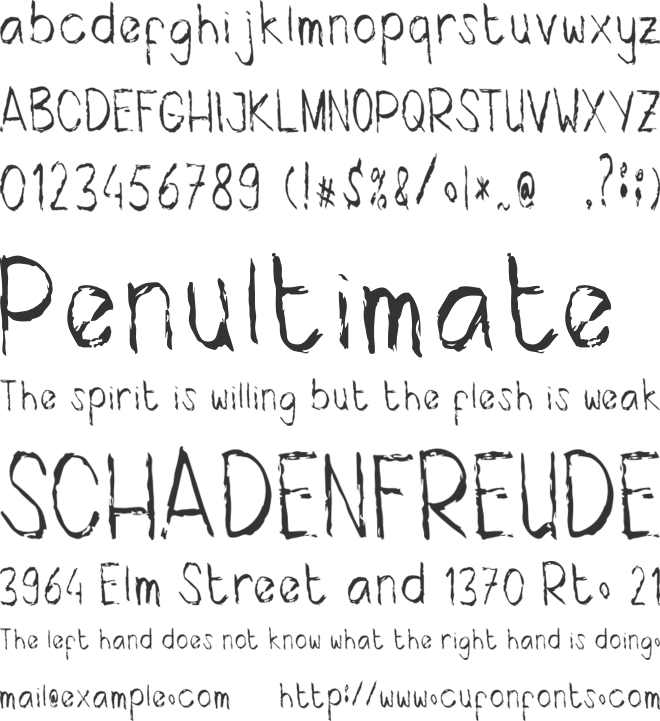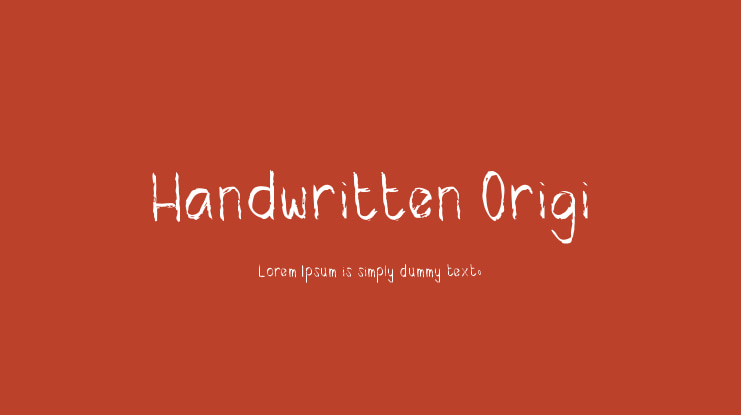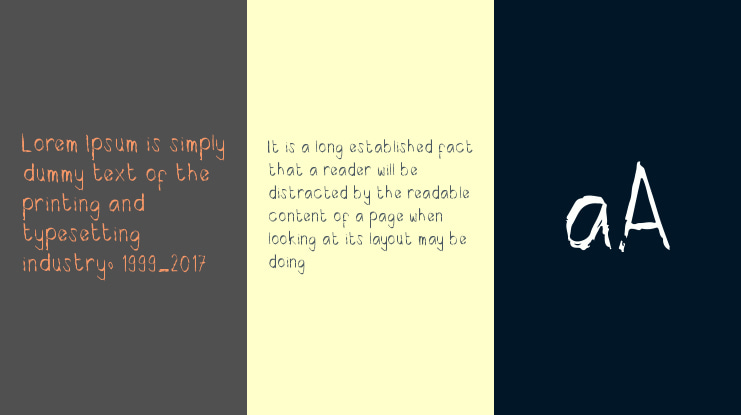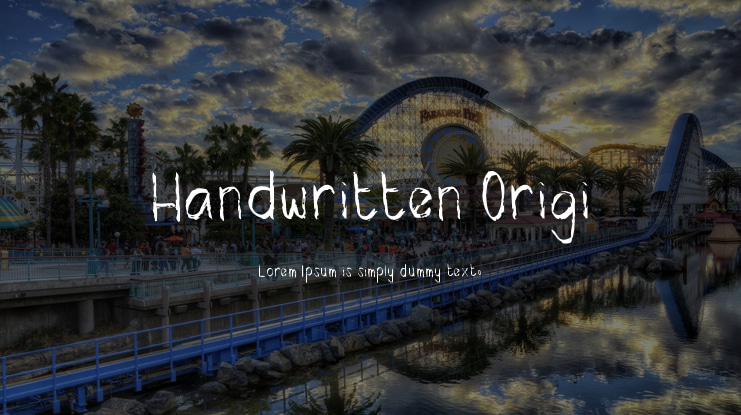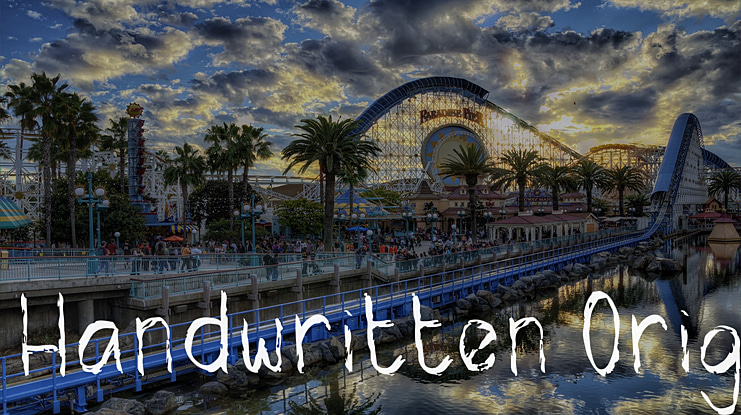
Handwritten Origi Font
Handwritten Origi is inspired by developments in the world of brush category design. This font type can be used for outdoor design purposes